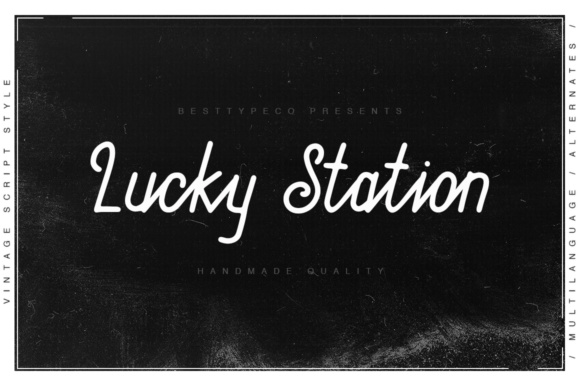
Step into the realm of captivating calligraphy with Lucky Station Font, the creation of the renowned BennyDesigns. This elegantly crafted script font is a true masterpiece, ready to infuse your designs with a touch of undeniable charm.
Embark on a typographic journey like no other, where each letter is a testament to the beauty of handwritten artistry. Lucky Station Font dances across the page with its fluid strokes and delicate curves, capturing the essence of effortless elegance. Whether you're crafting greeting cards that convey heartfelt messages, designing branding materials that exude professionalism, or creating business cards that leave a lasting impression, this font is your perfect companion.
With Lucky Station Font, the possibilities are limitless. Its versatile nature makes it the ideal choice for a wide array of projects. Let your imagination soar as you explore the endless creative avenues that this font opens up. Whether you're a seasoned designer seeking a touch of timeless sophistication or a budding artist eager to leave your mark, Lucky Station Font is your gateway to typographic excellence.
Discover the allure of Lucky Station Font today and elevate your designs to new heights. Its intricate details and captivating charm will undoubtedly captivate your audience, leaving them in awe of your creative genius.
Make the switch to Lucky Station Font and witness the transformation of your designs. Its beauty and elegance will undoubtedly leave an unforgettable impression on all who encounter it.